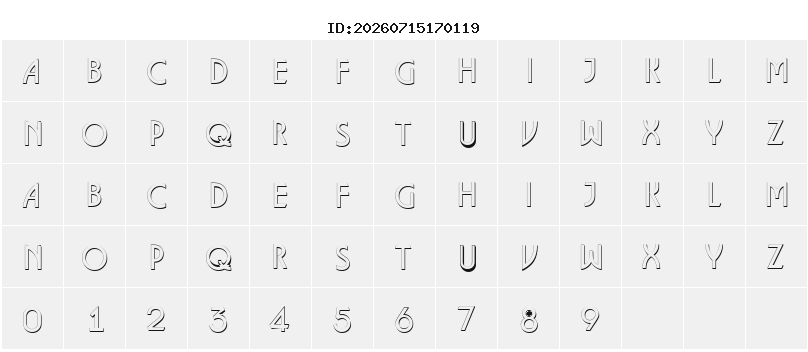
a_Lancet3D Preview
• Font Name: a_Lancet3D
• Designer: W.Chufarofsky & M.Slutsker
About a_Lancet3D.ttf
a_Lancet3D.ttf is a modern, elegant sans-serif font designed for ultimate readability and visual harmony. Perfect for branding, headlines, web design, and print materials.